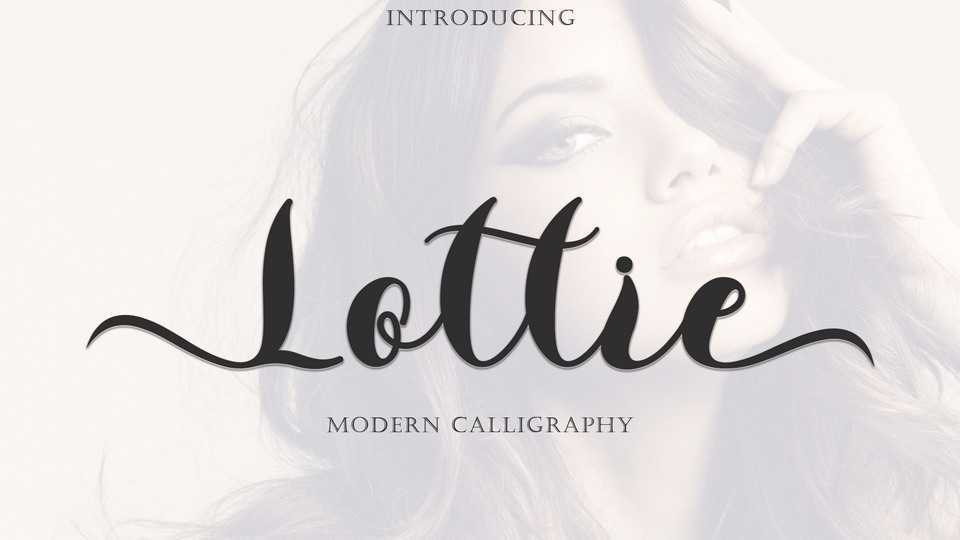
Download Lottie font, a very pretty handwritten script. Lottie is very suitable for wedding, photography, decoration, Christmas, valentine, winter, fall, sublimation, procreate, logos, sticker, banner, poster.
Designer: Selvia Design